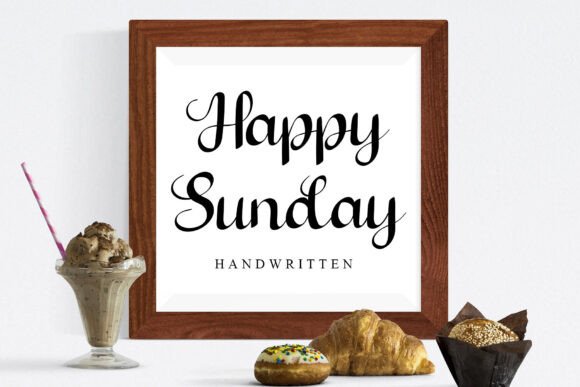
Introduction to Handmade Background Font
As a designer, have you ever found yourself struggling to convey the perfect message through your work? The moment of truth arrives when you’re about to finalize a design project, and you just can’t seem to put your finger on the missing element. That’s where the Handmade Background Font comes in – a game-changing design resource that can elevate your creative project to the next level.
With its unique and elegant touch, the Handmade Background Font is a versatile tool that can be used in a variety of applications, from wedding invitations and greeting cards to billboards and logos. Its varied baseline and natural, hand-made touch create a truly spectacular visual effect that will make your ideas stand out and look more real.
Not only does the Handmade Background Font offer high quality and a wide range of creative possibilities, but it’s also PUA encoded, making it easy to access all glyphs and swashes with ease. Whether you’re working on a free download or a paid project, this design resource is sure to be a valuable addition to your toolkit.
Key Features of Handmade Background Font
- Unique, hand-drawn design elements for a creative project
- High-quality, transparent background for seamless integration
- Perfect design resource for bloggers, designers, and artists
Honest Review: Handmade Background Font
I recently stumbled upon the Handmade Background Font and I’m excited to share my thoughts with you. This free download has been a game-changer for my creative projects. The high quality design and transparent background make it perfect for adding a unique touch to my designs.
Here’s what I love about this design resource:
- ✨ Unique and creative design that adds a personal touch to any project
- ✨ High quality resolution that looks great in various sizes and resolutions
- ✨ Easy to use and customize to fit any design style
- ✨ Transparent background makes it perfect for overlaying on images or videos
- ⚠️ Limited character set, may not be suitable for lengthy text-based projects
- ⚠️ Not as versatile as some other fonts, may not work well in certain design contexts
Overall, I’m really impressed with the Handmade Background Font. It’s a great addition to any designer’s toolkit and has been a valuable resource for my creative projects. If you’re looking for a unique and high-quality design element, I highly recommend giving it a try.